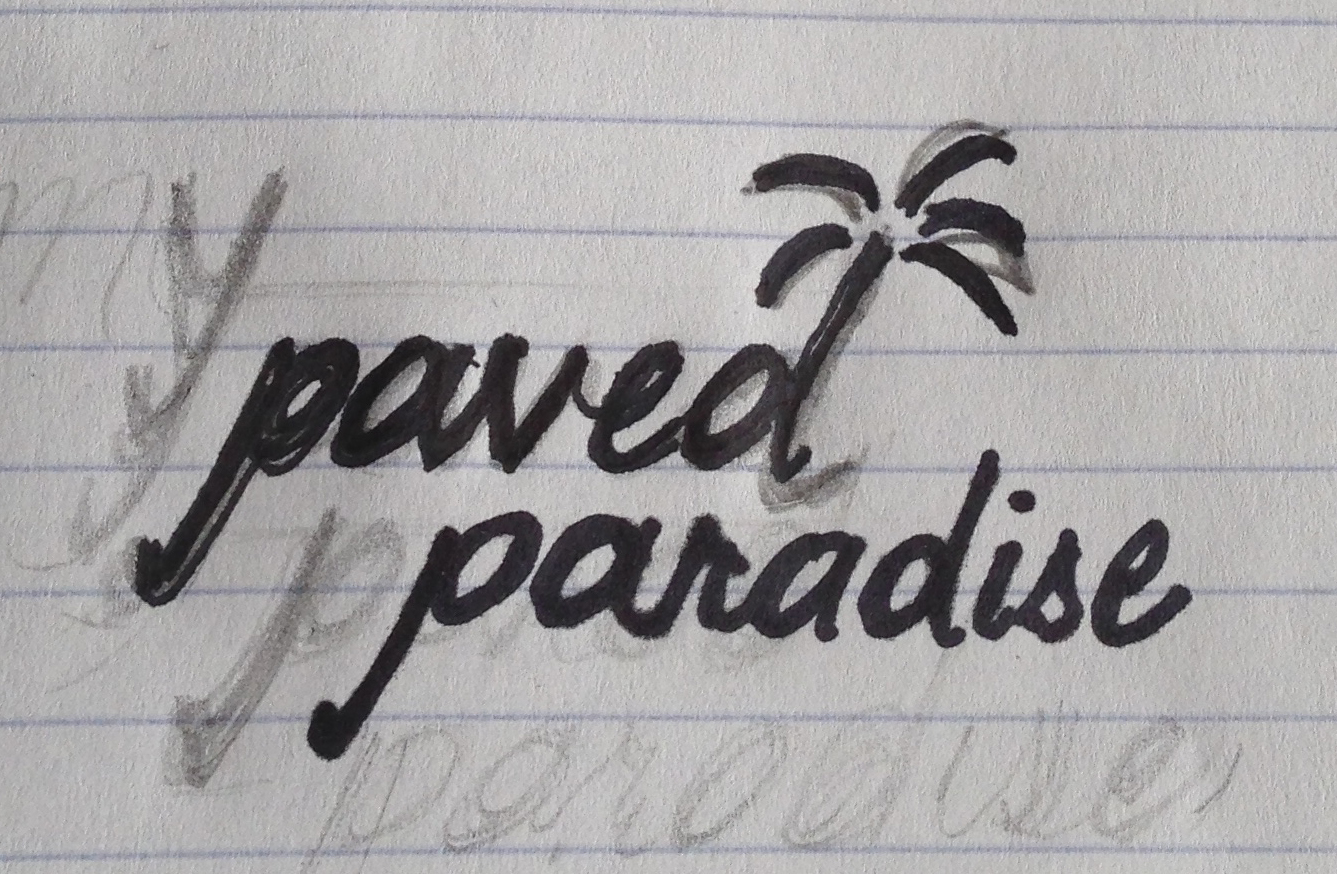
djsound macrumors 6502a Original poster Jan 6, 2014 #1 This is just an idea but do you guys know of a font that might be useable for this? Hand writing that connects the letters? Kinda simple....thanks.! Attachments IMG_1508.jpg 810.7 KB · Views: 184
This is just an idea but do you guys know of a font that might be useable for this? Hand writing that connects the letters? Kinda simple....thanks.!